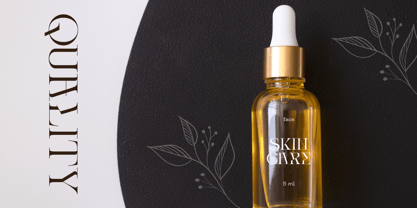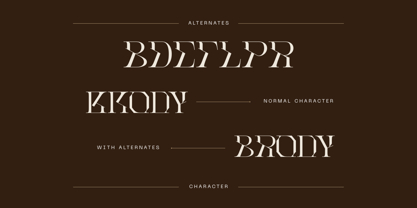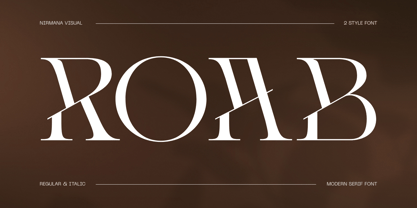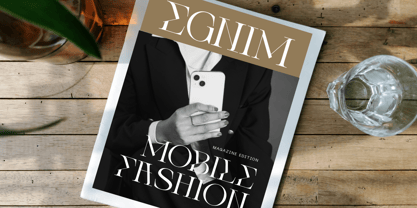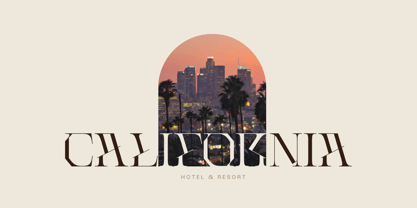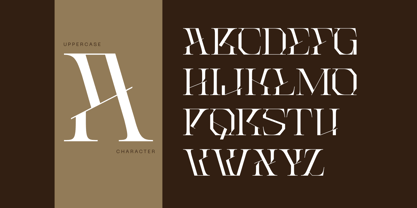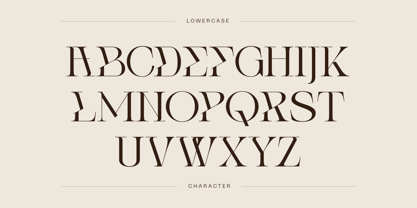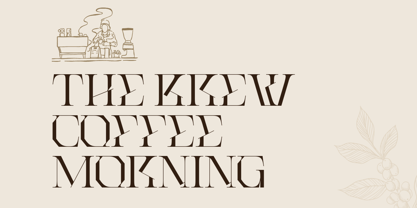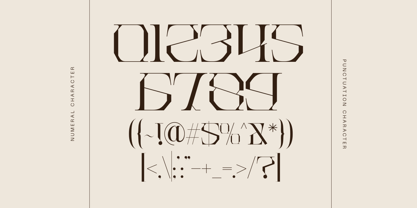
Roab Luxury
by Nirmana Visual
The Roab Luxury Font Family was designed by Sigit Dwipa and published by Nirmana Visual. Roab Luxury contains 2 styles and family package options. More about this family
Roab Luxury is a refined modern serif font crafted for elegance and sophistication. Its sleek curves and balanced proportions make it ideal for premium branding, logos, and high-end editorial design. Featuring both Regular and Italic styles, Roab Luxury exudes timeless class with a contemporary twist, perfect for fashion, luxury products, and exclusive brand identities. Elevate your designs with this chic and versatile typeface.
Designers: Sigit Dwipa
Foundry: Nirmana Visual